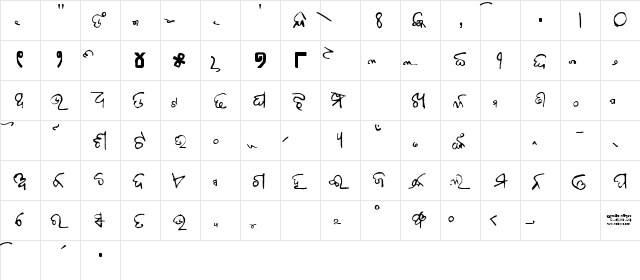
eOdissa Anamana Regular
Design Context for eOdissa Anamana Typeface
eOdissa Anamana is a composed and adaptable typeface that performs quietly and consistently across a wide range of design contexts.